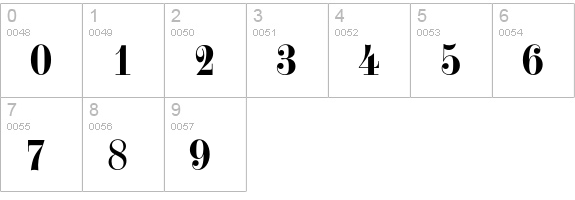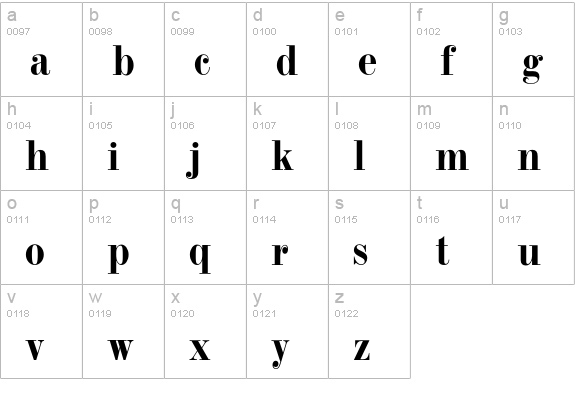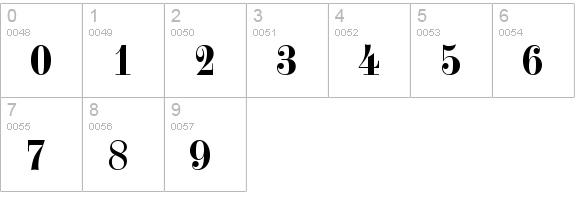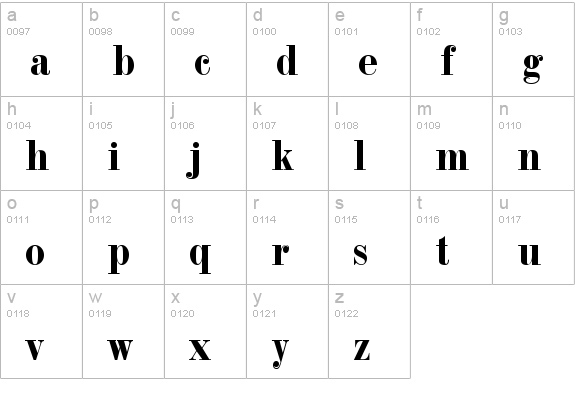
OPTITorry-Heavy Font Details
OPTITorry-Heavy is a heavy, high-impact variant in the OPTITorry typeface family \xE2\x80\x94 well suited to high-impact headlines, posters, and display advertising.
Introducing OPTITorry-Heavy font, a bold and impactful typeface that commands attention with its strong and sturdy design. With thick strokes and sharp edges, this font exudes a sense of power and authority, making it perfect for headlines, titles, and other display purposes. What sets OPTITorry-Heavy font apart is not just its striking appearance, but also the fact that it is available for free download at FontsMarket.com. Yes, you read that right - this high-quality font can be yours at no cost, allowing you to add a touch of sophistication and elegance to your projects without breaking the bank. Whether you're working on a poster, logo, website, or any other design project, OPTITorry-Heavy font is sure to make a lasting impression. Download it today and unleash the full potential of your creativity with this versatile and eye-catching typeface.